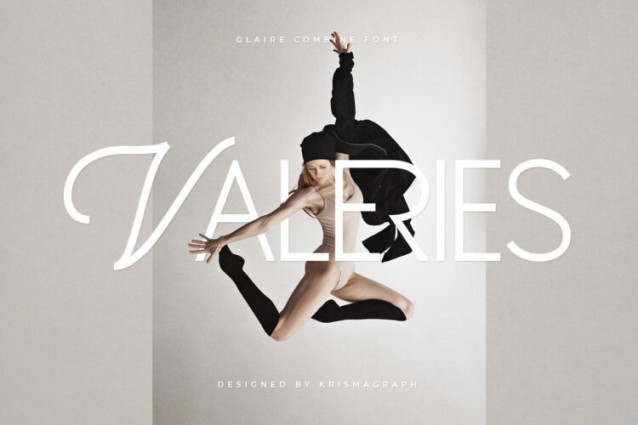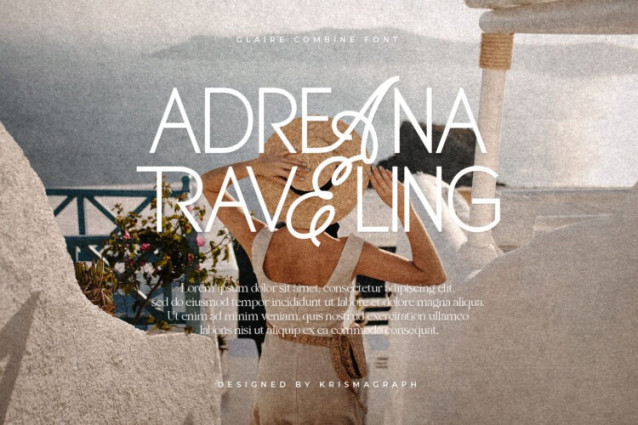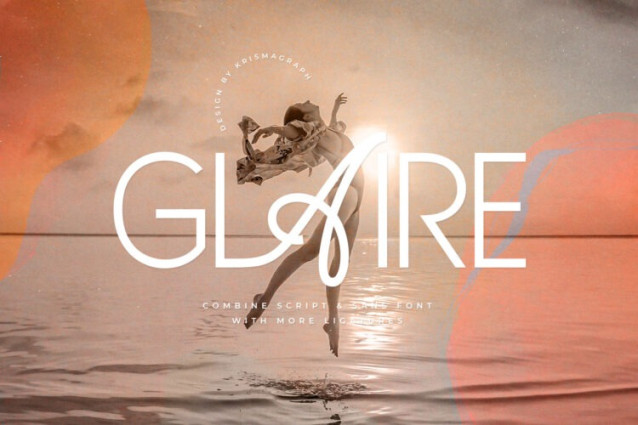
Glaire Font
Glaire Font is a beautiful and inspiring combination of script and sans with unique ligatures. Glaire is made mainly for headlines, titles, and other short texts and is well-suited for advertising, vintage mood board, branding, logotypes, packaging, titles, editorial design, modern logos, websites, social media quotes, wedding branding, modern and vintage design.